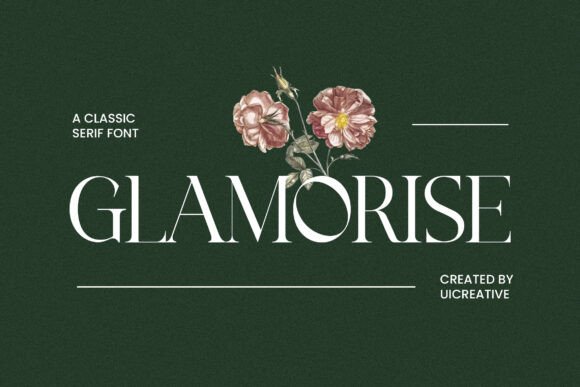
Glamorise Font: Elevate Your Design with Elegance and Sophistication
In the world of typography, fonts play a crucial role in conveying the tone and personality of a brand or design. Among the numerous fonts available, Glamorise and Glamorise Classy Serif Font stand out for their unique blend of elegance, class, and style. These modern fonts have gained popularity for their versatility and wide range of applications, from signature and stationery to logo design, wedding typography, and more. In this article, we’ll explore the characteristics, uses, and benefits of Glamorise Font and Glamorise Classy Serif Font, and how they can elevate your design to new heights.
The Essence of Glamorise Font
Glamorise Font is a sophisticated and stylish typeface that exudes elegance and refinement. Its modern design makes it an ideal choice for a variety of projects, including:
- Signature and stationery: Add a touch of luxury to your business cards, letters, and invoices.
- Logo design: Create a lasting impression with a custom logo that reflects your brand’s personality.
- Wedding typography: Make your special day even more memorable with beautiful wedding invitations and decorations.
- Magazine or book covers: Stand out on bookshelves with eye-catching typography that captures the essence of your publication.
- Website headers: Enhance your online presence with a stylish and modern font that reflects your brand’s identity.
- Branding: Develop a consistent visual identity across all your marketing materials.
Glamorise Classy Serif Font: A Timeless Choice
Glamorise Classy Serif Font is a variation of the Glamorise Font, characterized by its classic serif design. This font combines the elegance of traditional serif fonts with the sophistication of modern typography, making it perfect for:
- Fashion-related branding: Showcase your brand’s style and personality with a font that exudes luxury and refinement.
- Editorial design: Elevate your magazine, newspaper, or online publication with a font that commands attention.
- Display designs: Use Glamorise Classy Serif Font to create stunning display designs that showcase both masculine and feminine qualities.
Key Features of Glamorise Font and Glamorise Classy Serif Font
Both Glamorise Font and Glamorise Classy Serif Font share several key features that make them popular among designers:
- Elegant and refined design: These fonts boast a sophisticated style that adds a touch of luxury to any design.
- Versatility: Suitable for a wide range of projects, from print to digital applications.
- Masculine and feminine qualities: These fonts can be used to create designs that appeal to both men and women.
- High legibility: The clear and readable design ensures that your message is conveyed effectively.
Benefits of Using Glamorise Font and Glamorise Classy Serif Font
By incorporating Glamorise Font and Glamorise Classy Serif Font into your design, you can:
- Enhance your brand’s image: A sophisticated font can elevate your brand’s reputation and make it more memorable.
- Stand out from the competition: Unique and stylish typography can help you differentiate your brand from others.
- Increase engagement: A well-designed font can capture the attention of your audience and keep them engaged.
- Improve readability: Clear and legible typography ensures that your message is conveyed effectively.
Tips for Using Glamorise Font and Glamorise Classy Serif Font
To get the most out of these fonts, consider the following tips:
- Use them sparingly: Reserve these fonts for headlines, titles, or key messages to create visual hierarchy.
- Pair with complementary fonts: Combine Glamorise Font and Glamorise Classy Serif Font with other fonts to create a unique and harmonious design.
- Experiment with colors and textures: Add depth and interest to your design by experimenting with different colors and textures.
- Consider the context: Choose the right font for the right project, taking into account the tone, purpose, and audience.
Glamorise Font and Glamorise Classy Serif Font are exceptional choices for designers seeking to add elegance, sophistication, and style to their work. With their versatility, readability, and unique blend of masculine and feminine qualities, these fonts can elevate your design to new heights. Whether you’re working on a fashion brand, editorial design, or simply looking for a stylish font for your website or marketing materials, Glamorise Font and Glamorise Classy Serif Font are sure to impress.